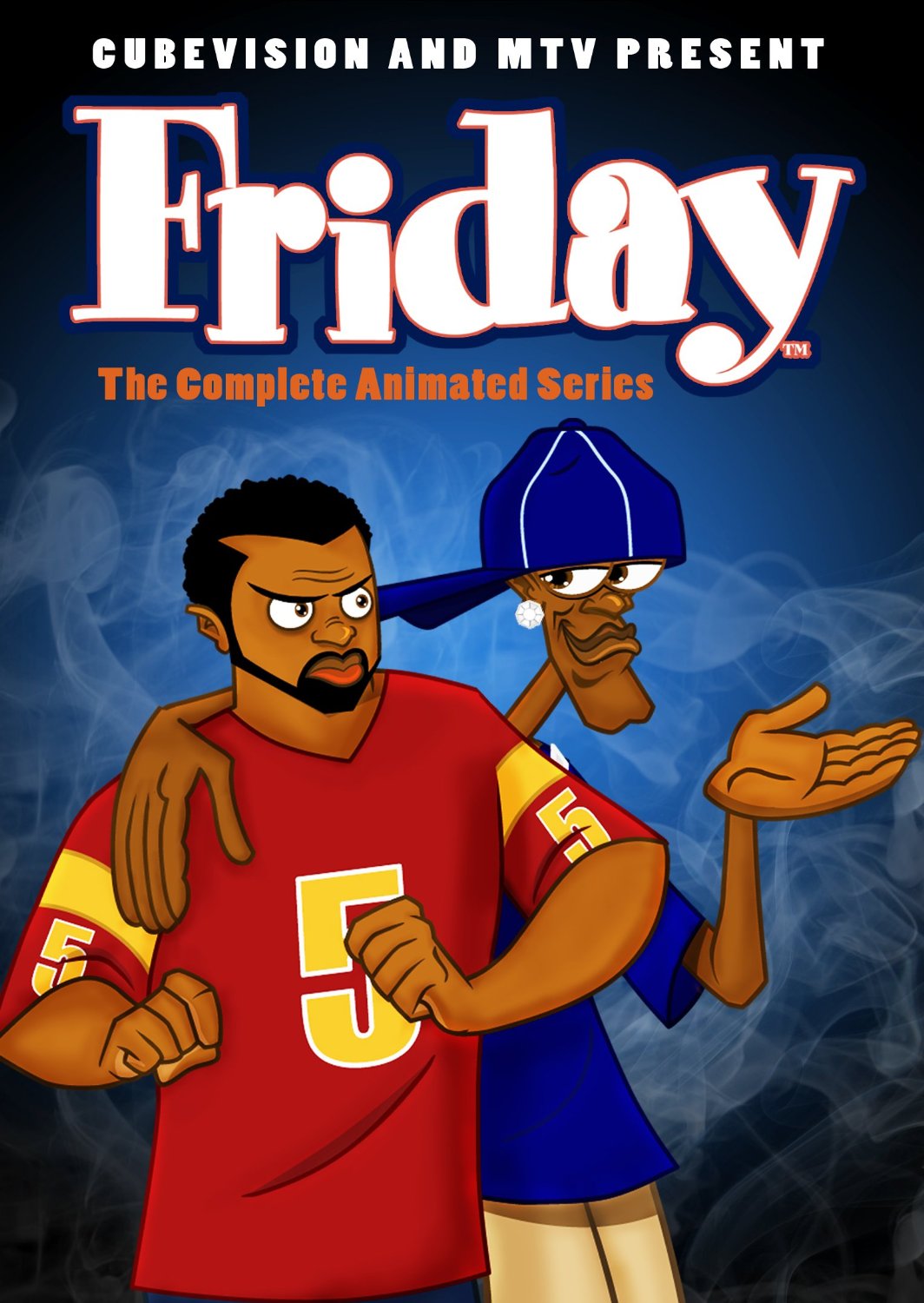
Friday [TV Show] Font
AnimationFriday: The Animated Series is a popular American sitcom that aired from October 11, 2000 to April 25, 2002 on the UPN network. It follows the lives of two best friends, Craig Jones and Smokey, who live in the same neighborhood and often get into mischief and trouble together.
The logo of the Friday TV show uses a bouncy headline typeface called Spumoni. Designed by Garret Boge, Spumoni is inspired by the Bodoni typeface and poster lettering designs of the 1940s.